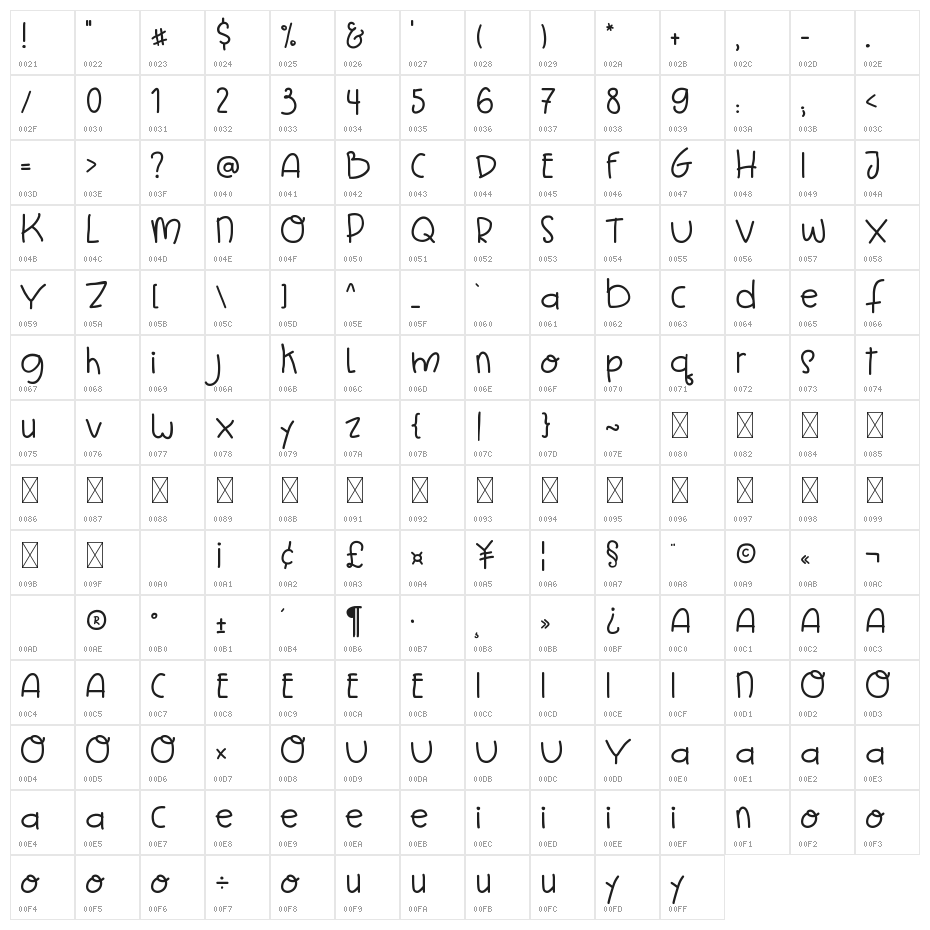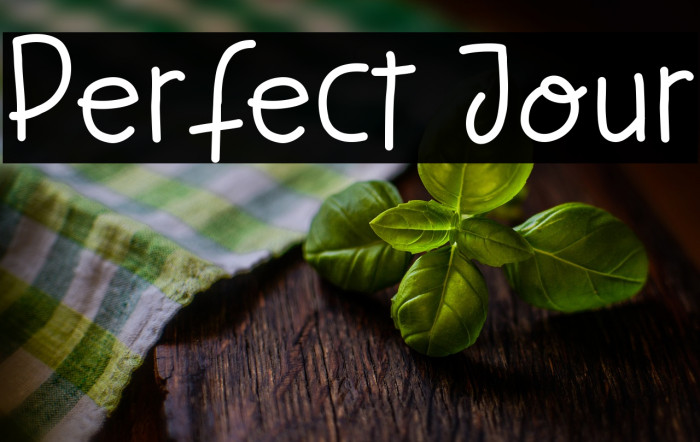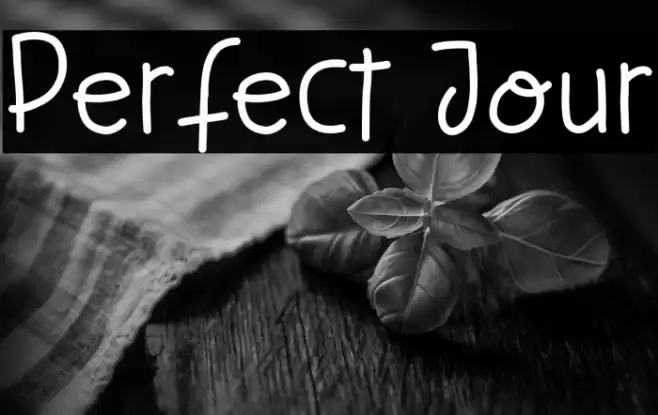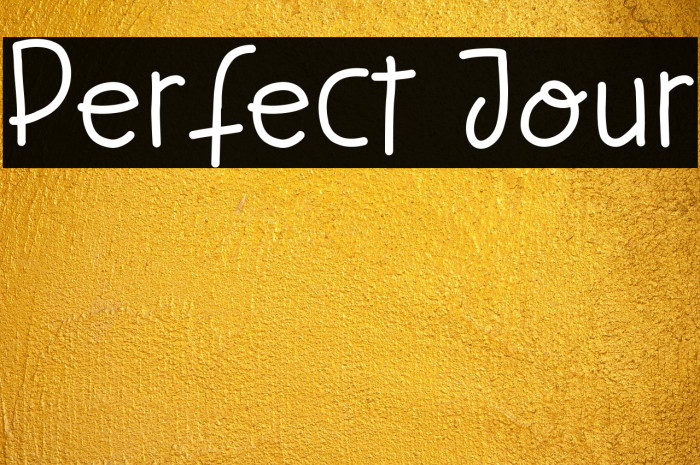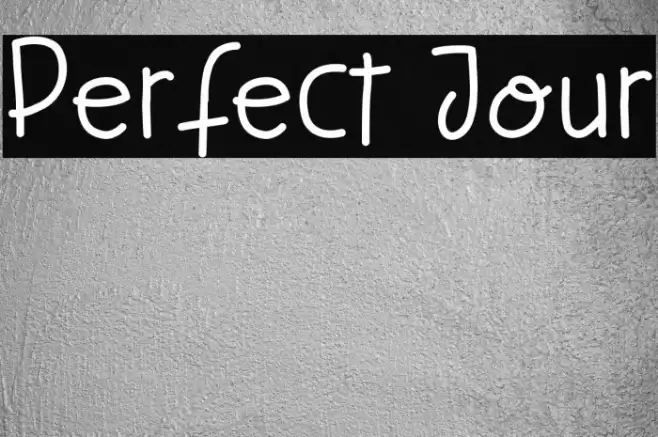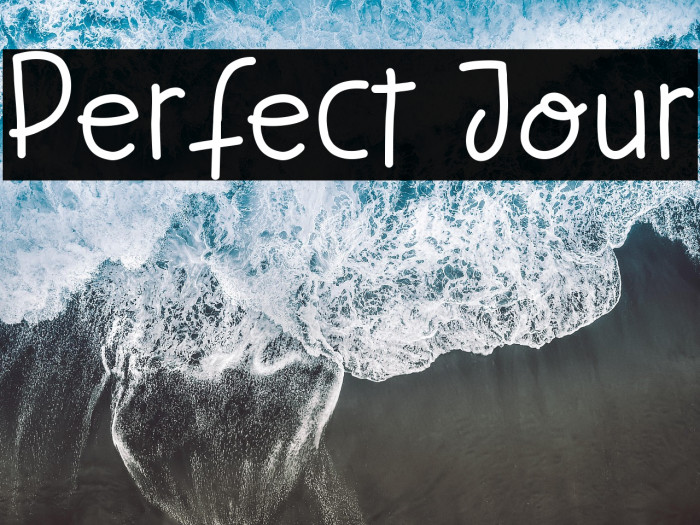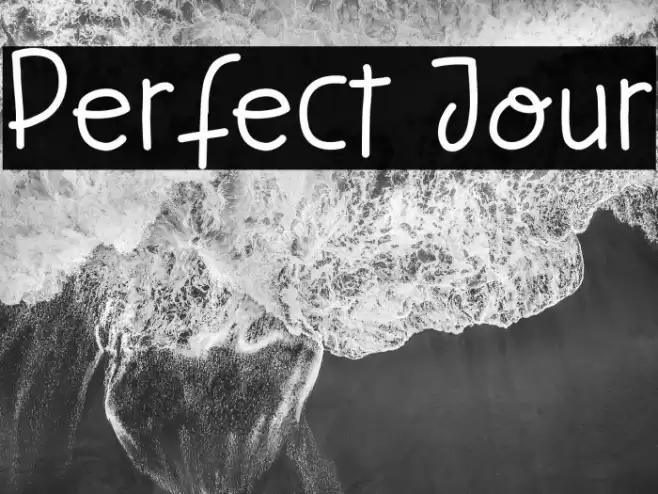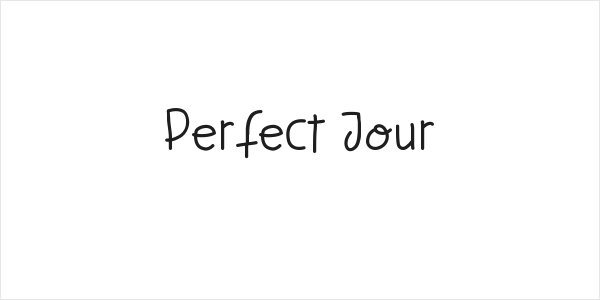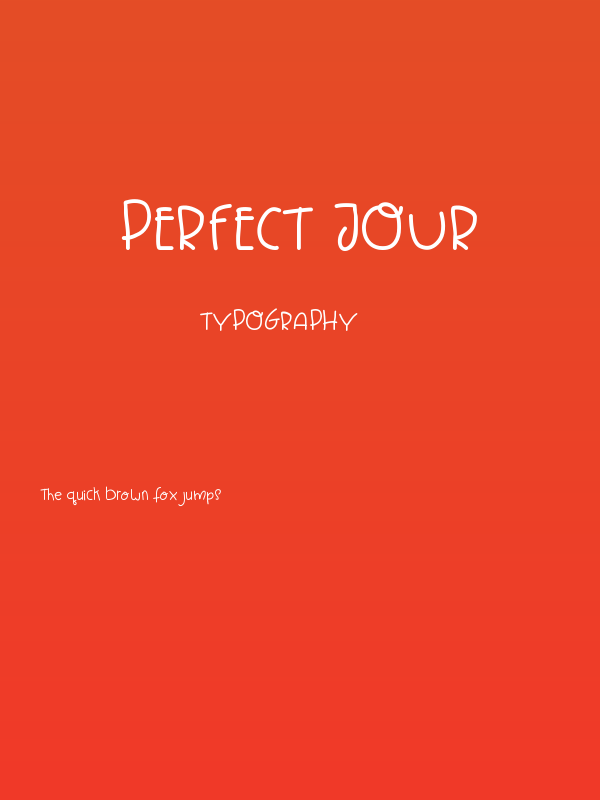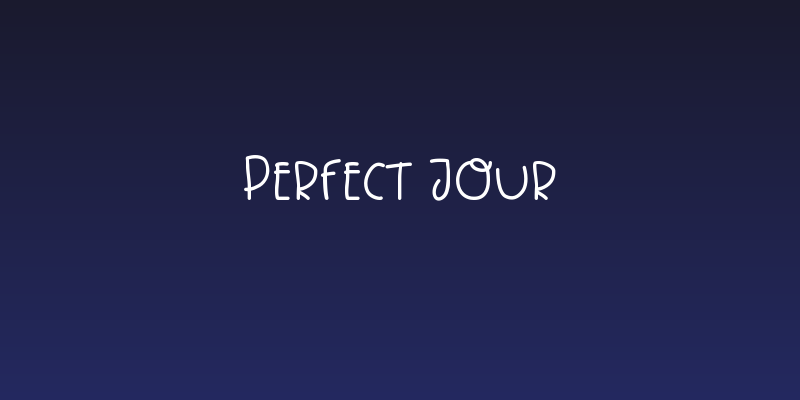
Perfect Jour Font
Perfect Jour Description
This playful and whimsical font features a handwritten style with a casual, friendly appearance. The letters are slightly irregular, adding a personal touch to the text. The strokes are consistent in thickness, giving it a uniform look while maintaining its informal charm. The characters are well-spaced, ensuring readability even in longer texts. The font includes a full set of uppercase and lowercase letters, numbers, and a variety of special characters, making it versatile for different uses. Its unique style makes it stand out, perfect for projects that require a touch of personality and creativity.
Overall StyleCasual, Playful
Use CaseHeadlines, Informal text, Creative projects
Proposed ProjectsIdeal for greeting cards, children's books, personal blogs, and creative branding projects.